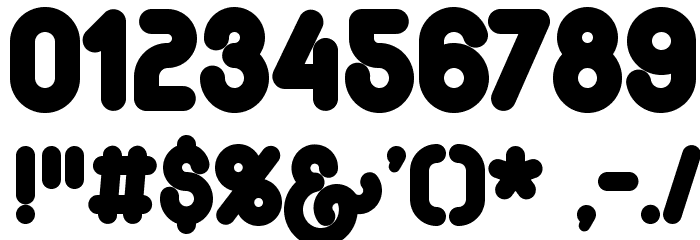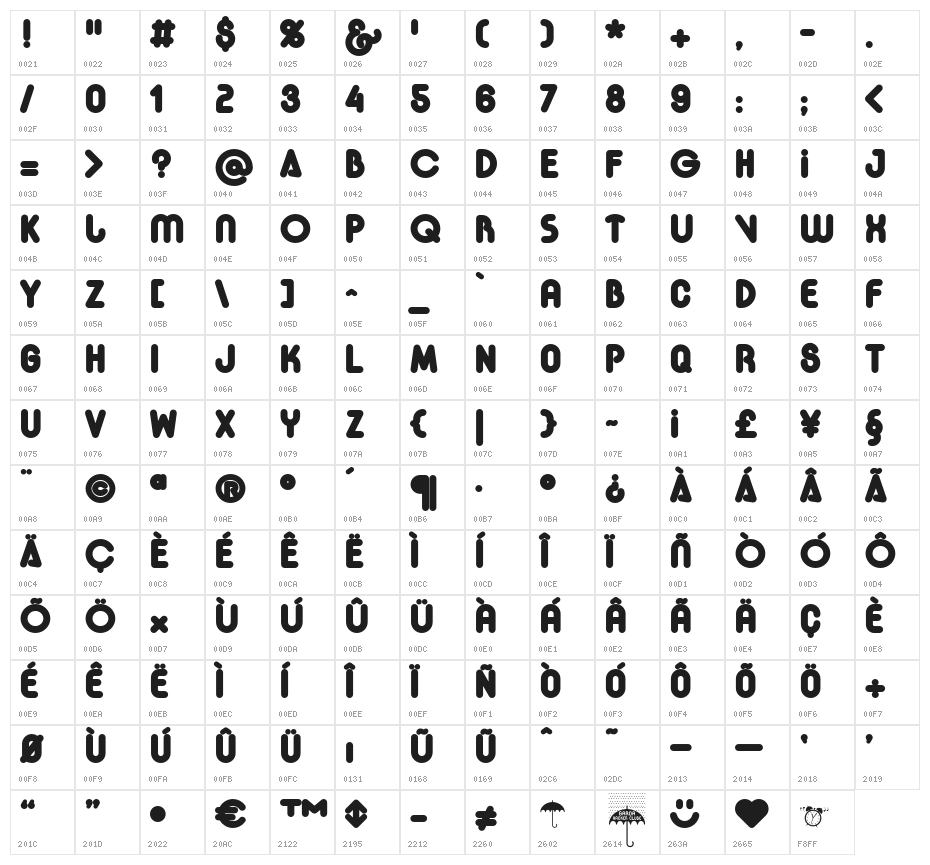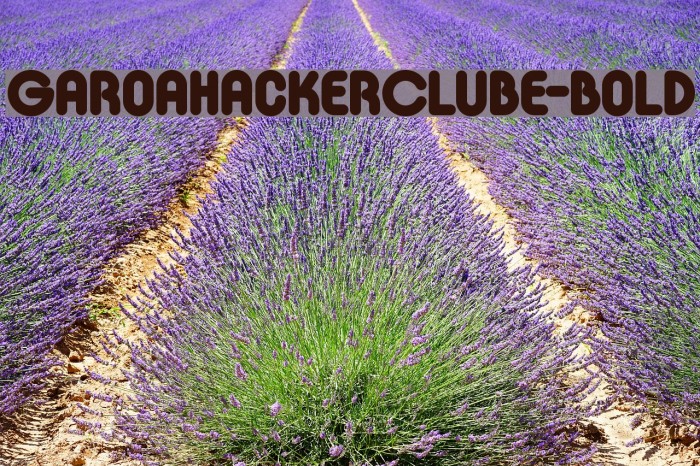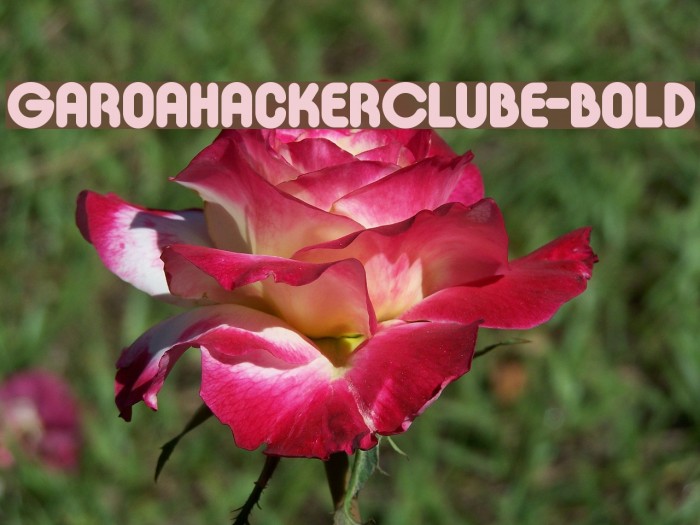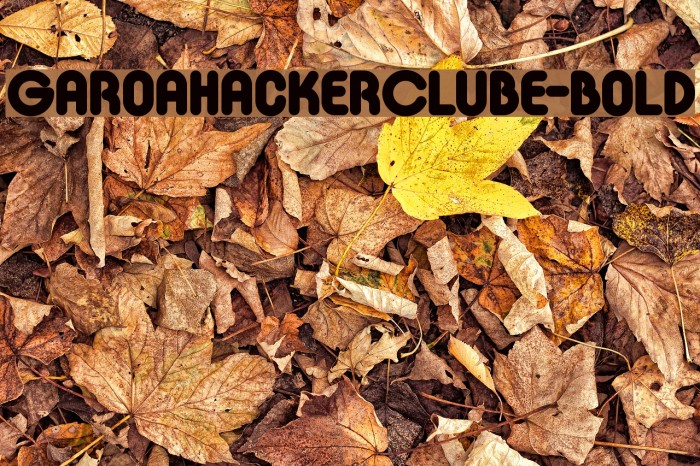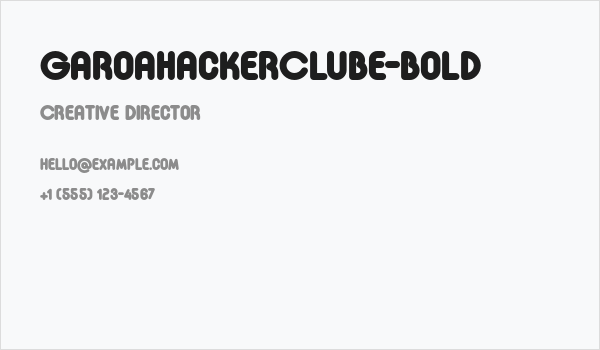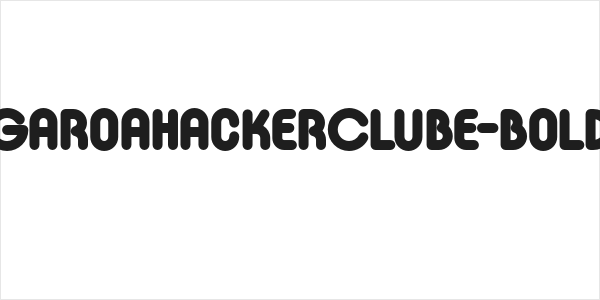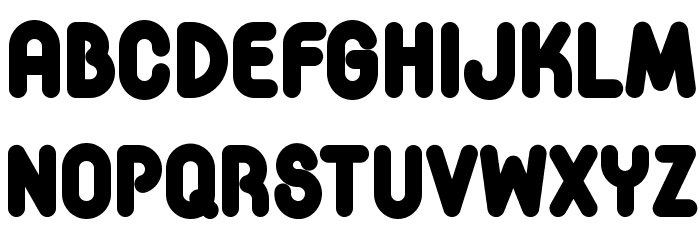
GaroaHackerClube-Bold Font
GaroaHackerClube-Bold Description
This font features a bold and playful design with rounded edges and a thick, uniform stroke. The characters are well-spaced, providing a clean and legible appearance. Its unique style combines a modern aesthetic with a touch of retro charm, making it stand out in any design. The uppercase and lowercase letters maintain a consistent weight, while the numerals and special characters complement the overall look. This font's boldness and rounded forms make it ideal for projects that require a friendly and approachable feel.
| Overall Style | Modern, Retro |
| Proposed Projects | Ideal for branding, posters, children's books, and playful packaging designs. |